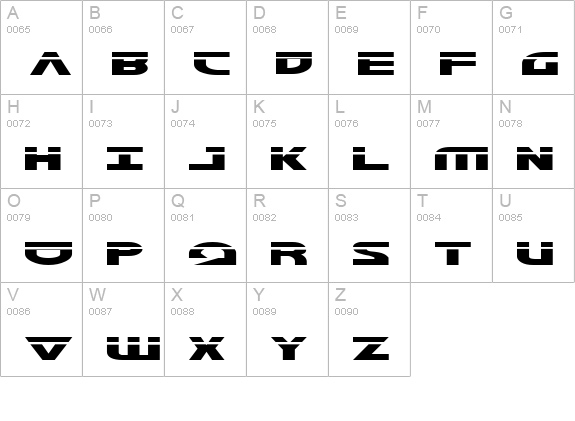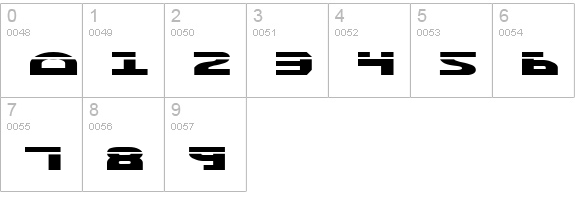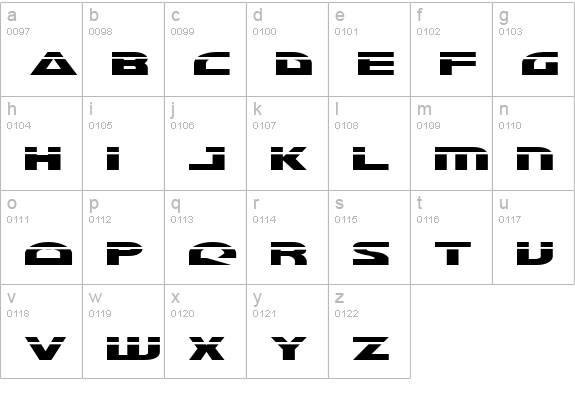
Morse NK Laser Font Details
Morse NK Laser font is a sleek and modern typeface that exudes sophistication and elegance. With its sharp lines and bold strokes, this font is perfect for creating eye-catching designs that demand attention. The laser-like precision of the characters gives off a futuristic vibe, making it ideal for projects that require a modern touch. What sets Morse NK Laser font apart is not just its visual appeal, but also its versatility. Whether you're designing a logo, a poster, a website, or any other creative project, this font will elevate your work to the next level. Its clean and crisp appearance ensures readability, making it suitable for a wide range of applications. The best part? Morse NK Laser font is available for free download at FontsMarket.com. That's right, you can get your hands on this stunning font without spending a dime. So why wait? Add Morse NK Laser font to your collection today and let your creativity shine!